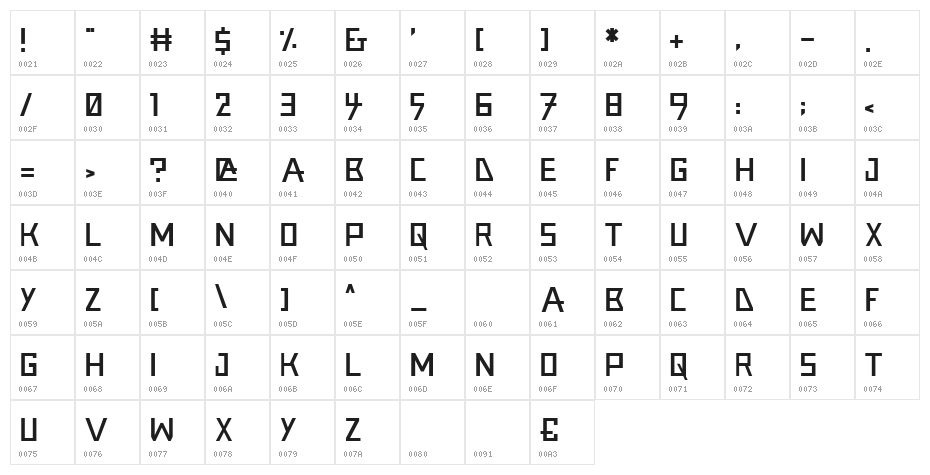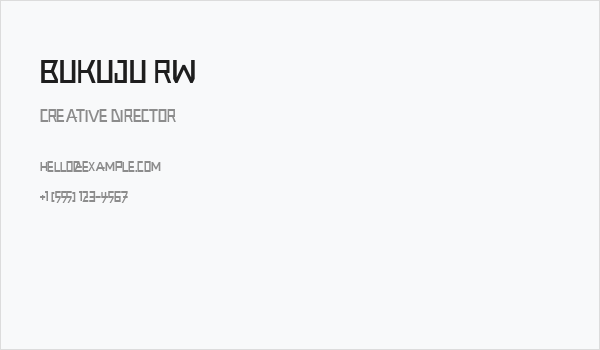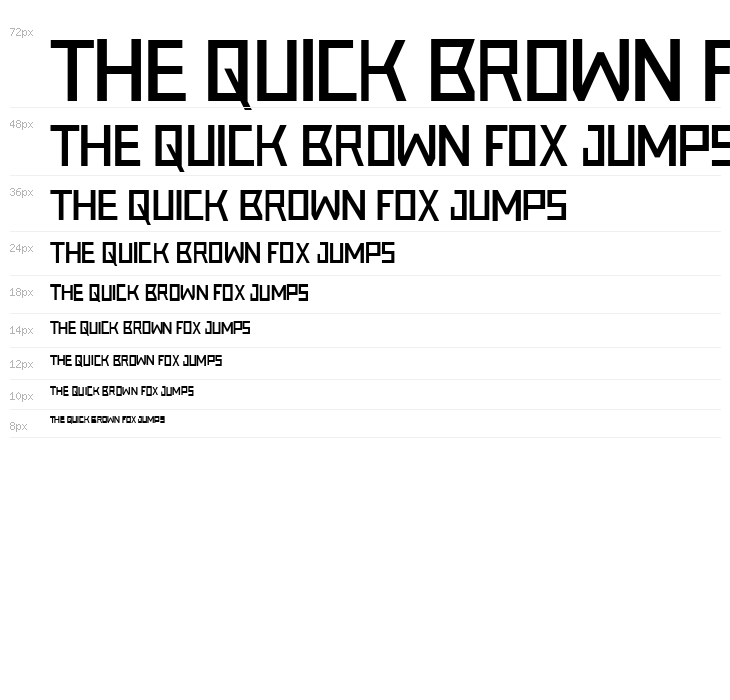
Bukuju RW Font
Bukuju RW Description
This font features a bold, geometric design with sharp angles and a futuristic aesthetic. The characters are constructed with straight lines and triangular elements, giving it a distinct, modern look. The uppercase and lowercase letters maintain a consistent style, with the uppercase being more prominent and angular. Numbers and special characters follow the same geometric pattern, ensuring uniformity across all glyphs. The font's unique style makes it stand out, suitable for projects that require a contemporary and edgy appearance.
| Proposed Projects | Ideal for technology branding, sci-fi themed projects, modern posters, and digital interfaces. |